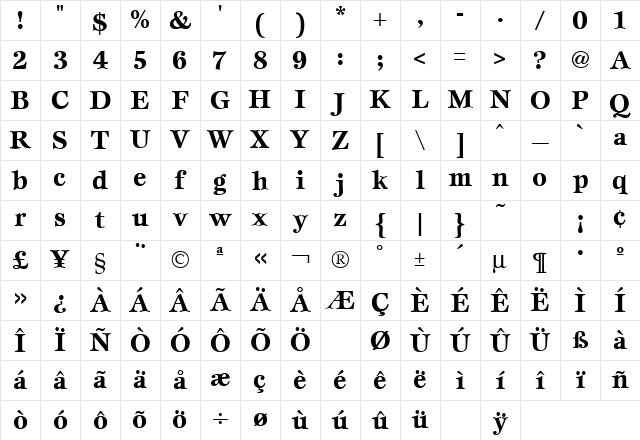
Complete Esprit Bold glyph index. Displaying only characters natively supported by Esprit Bold font.
Esprit is a composed and adaptable typeface that performs quietly and consistently across a wide range of design contexts. Its bold stroke weight gives it real presence on the page.